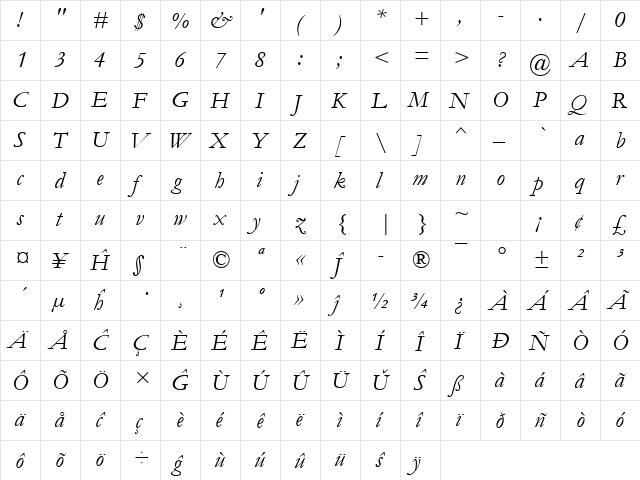
Garamond MT Eo Italic
Design Context for Garamond MT Eo Typeface
Garamond MT Eo offers clean, dependable letterforms without strong stylistic allegiance, making it a practical choice for designers who need flexibility. Its italic angle brings a sense of urgency and motion to the letterforms.
Pro Tip: Try Garamond MT Eo for annotation and caption copy alongside an upright companion — the contrast in angle creates a dynamic but ordered typographic system.